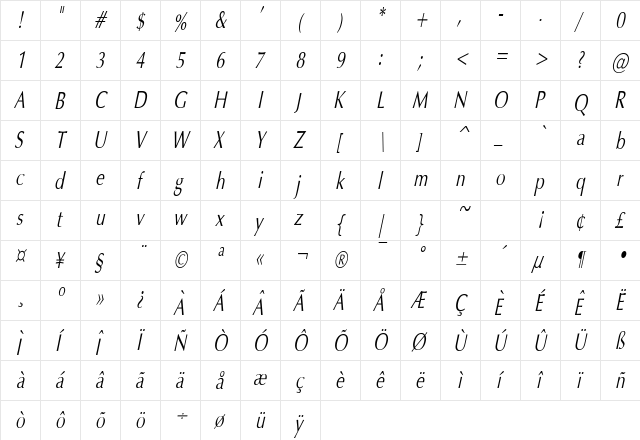
EternaCondensed Oblique
Design Context for EternaCondensed Typeface
EternaCondensed is a composed and adaptable typeface that performs quietly and consistently across a wide range of design contexts. The dynamic lean of this cut emphasises speed and emphasis in any layout. The condensed width makes it efficient for tight spaces without sacrificing legibility.